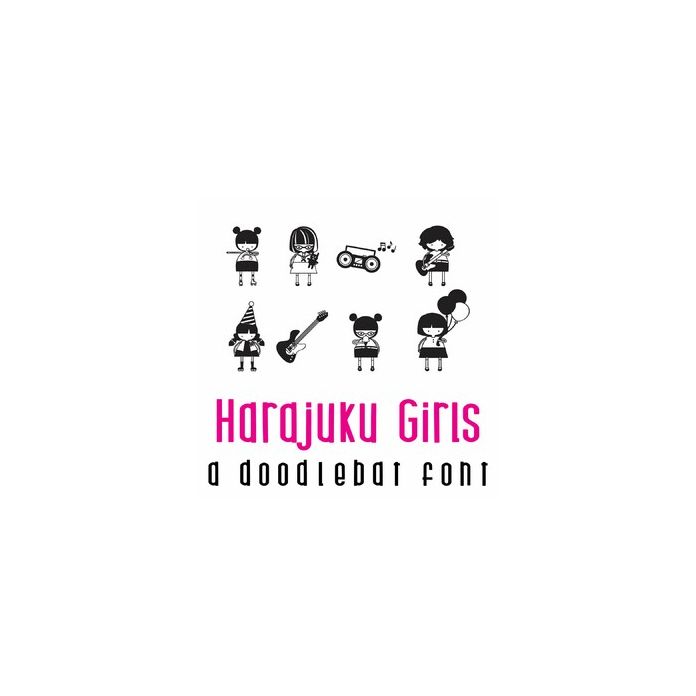
Harajuku Girls Doodlebat Font
This fun doodlebat font features 26 adorable Harajuku girls. Perfect for cards, crafts, gifts, decor, scrap book pages, planner stickers and more!